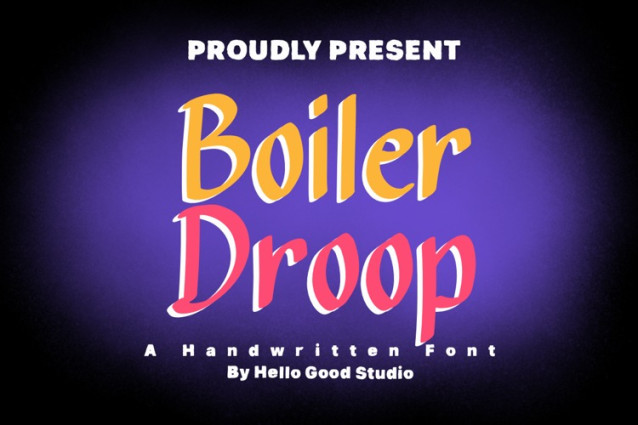
Boiler Droop Font
Boiler Droop Font is a simple and modern display font suitable for quotes, logos, headings, titles, and many more. Use it on any of your creative projects, and your designs will become outstanding!